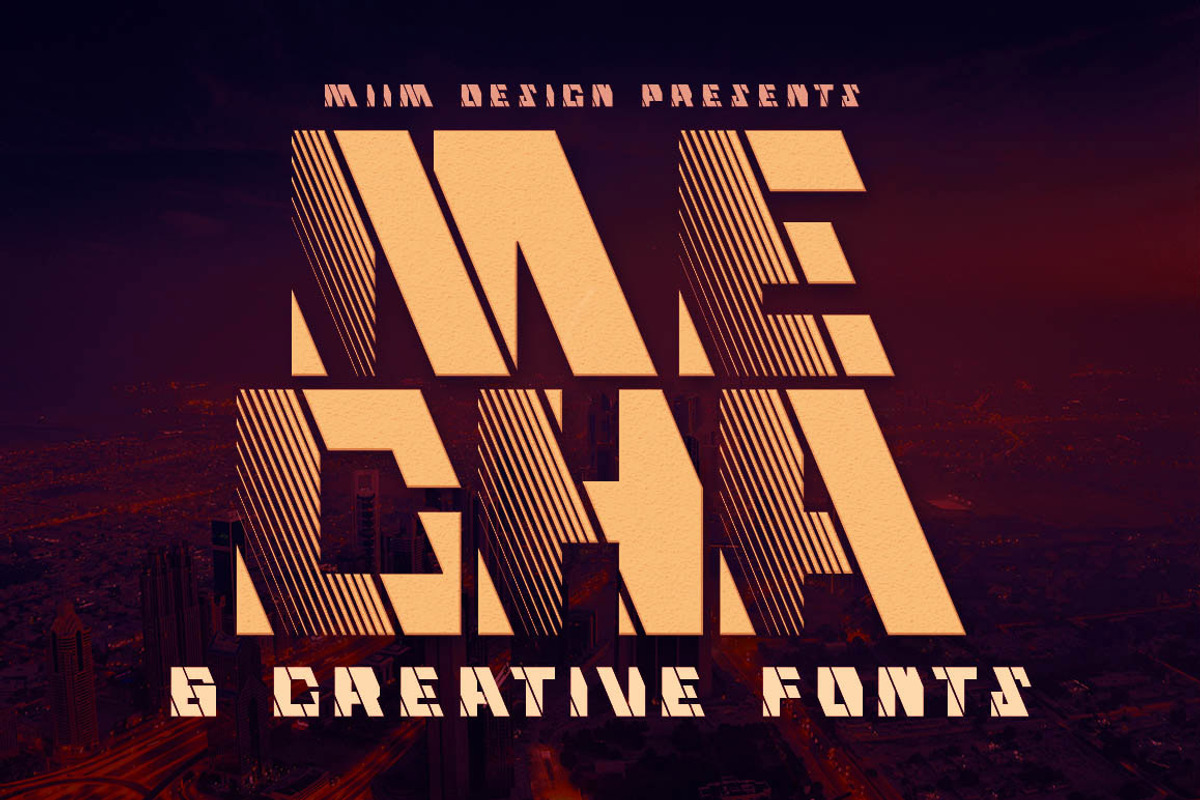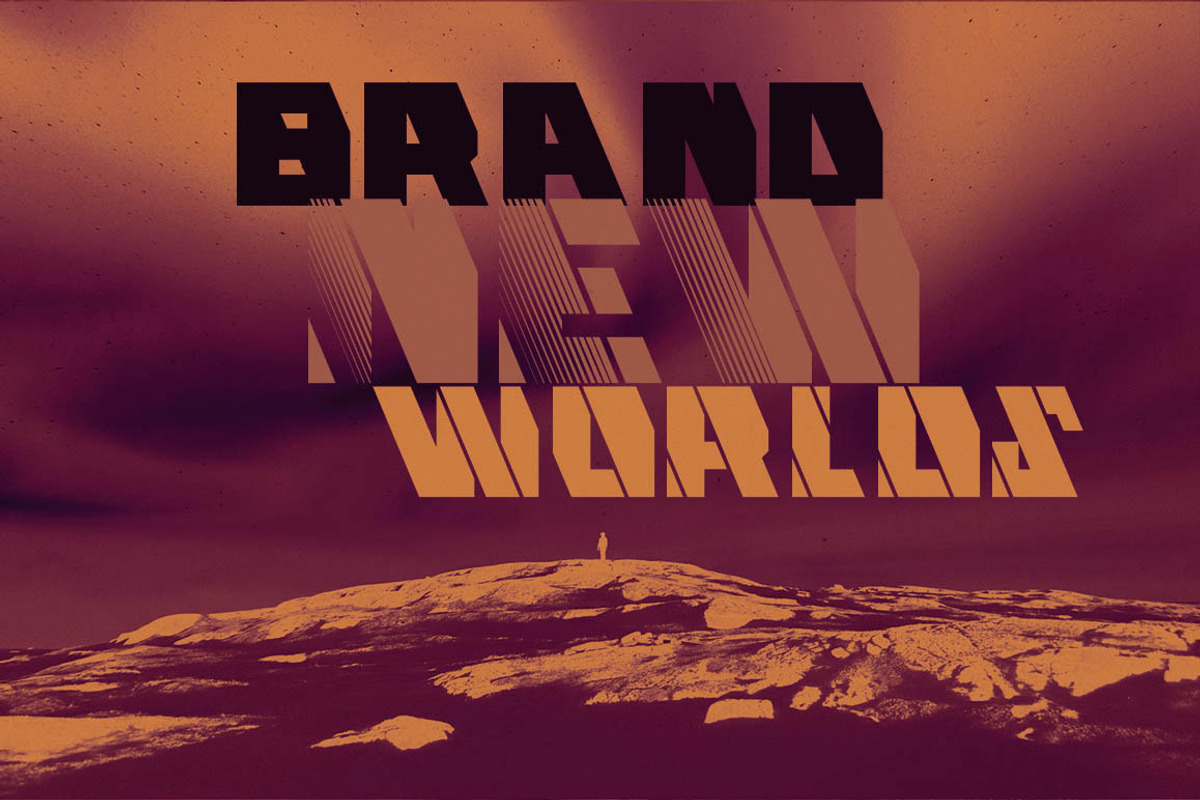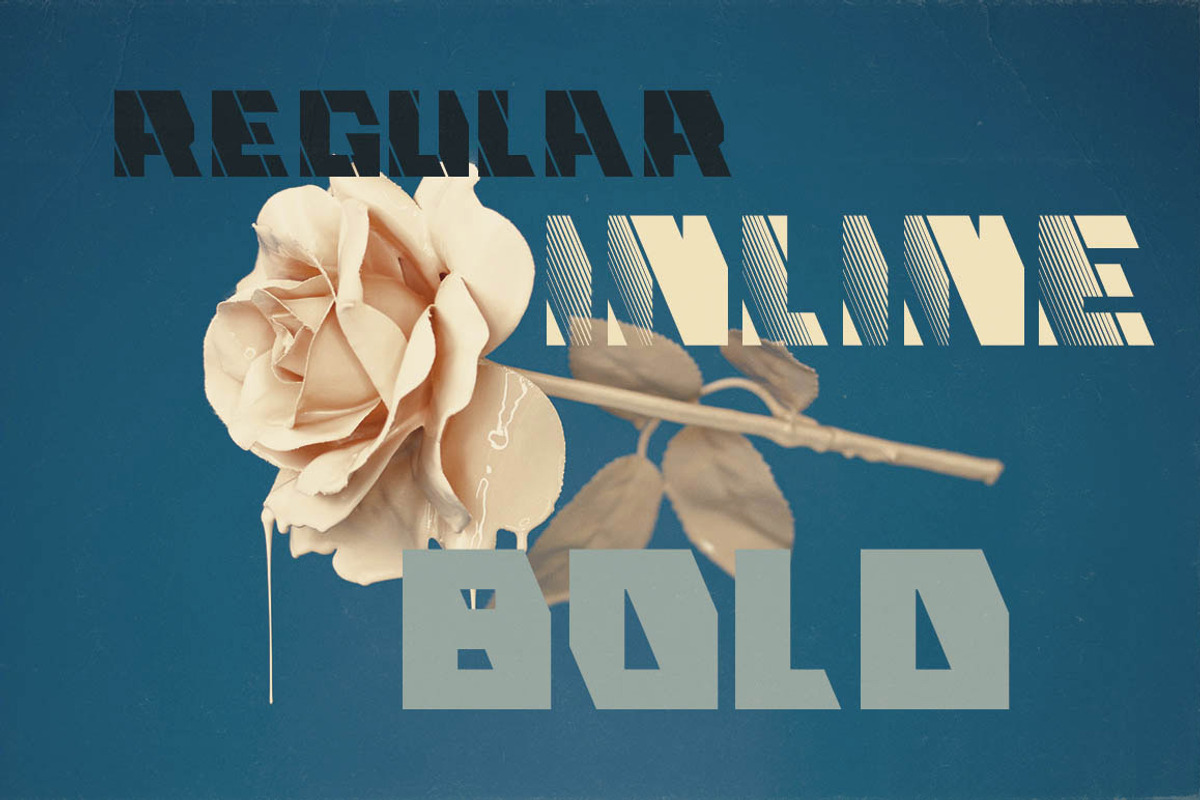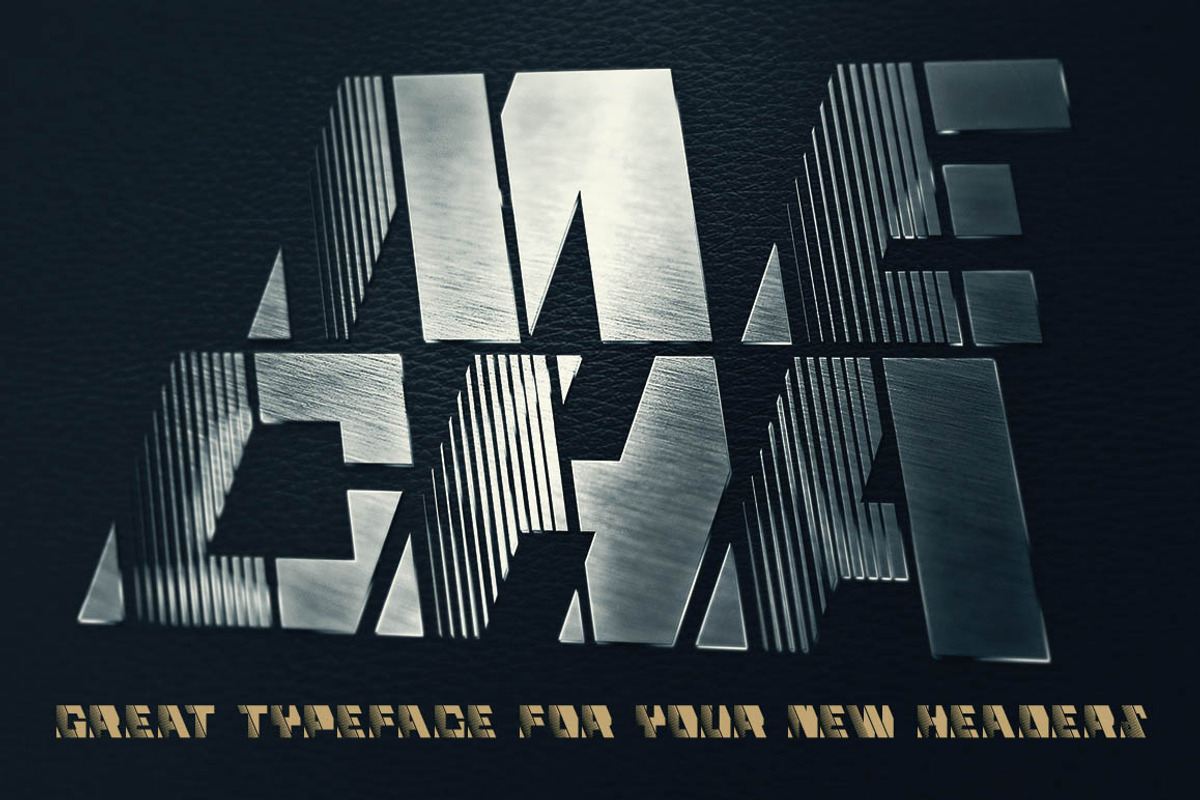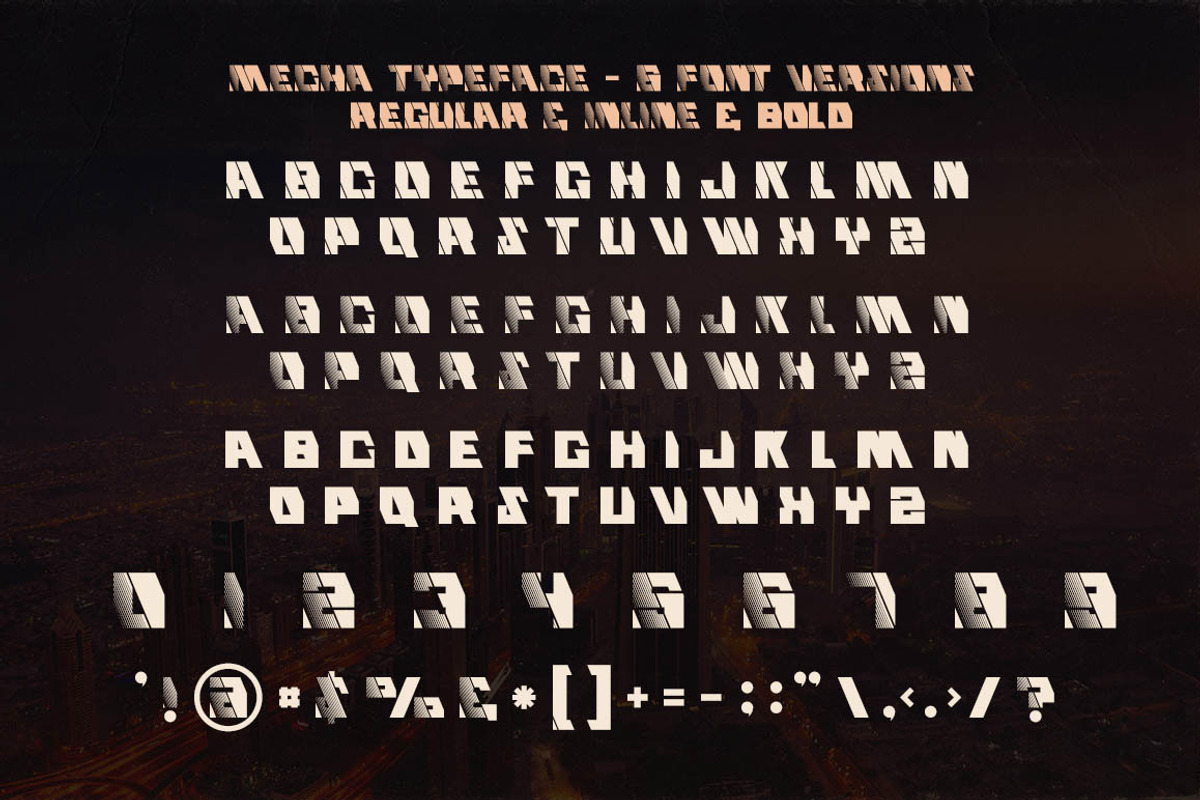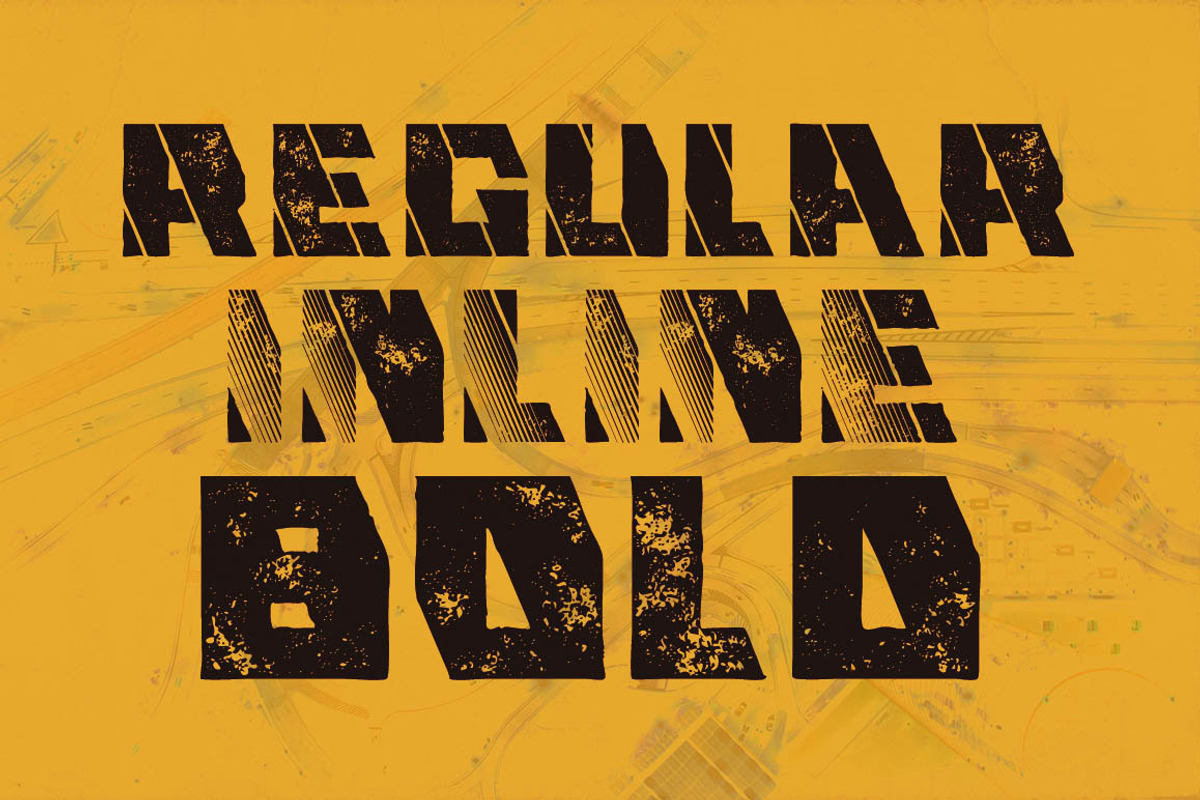
Mecha - Display Font
Creative, modern & decorative font for your new projects. Great for modern or creative style projects!
Why Mecha - Display Font is worth a look
Mecha - Display Font by MIIM fits naturally into Branding, posters, packaging, typography.